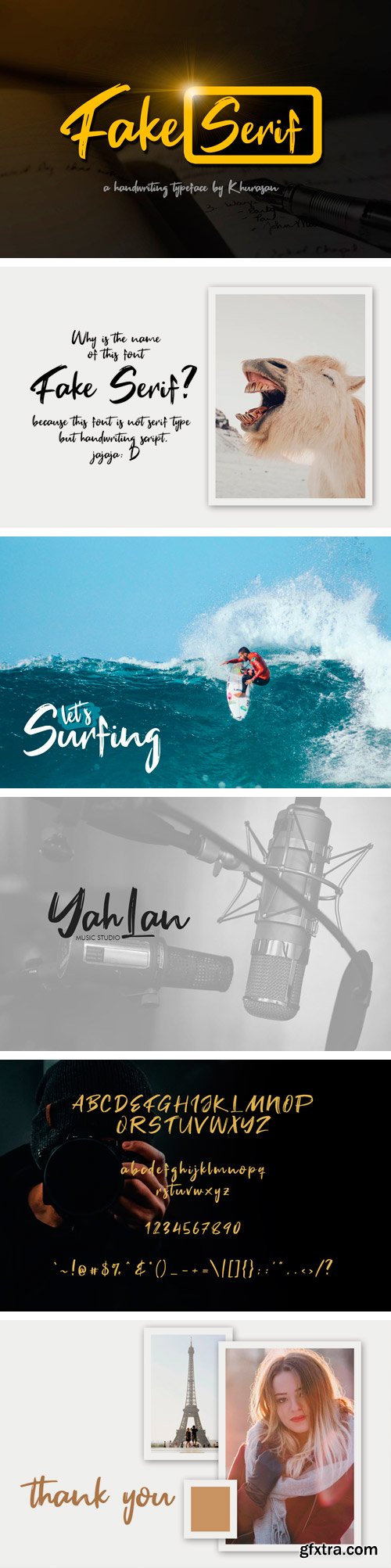
假 serif 字体
Fake Serif Font
Fake Serif is a hand-painted dry brush font . It contains uppercase and lowercase letters, numbers and symbols, supports multilanguage. This font is great for headlines, posters, apparel, covers, social media and other creative designs.